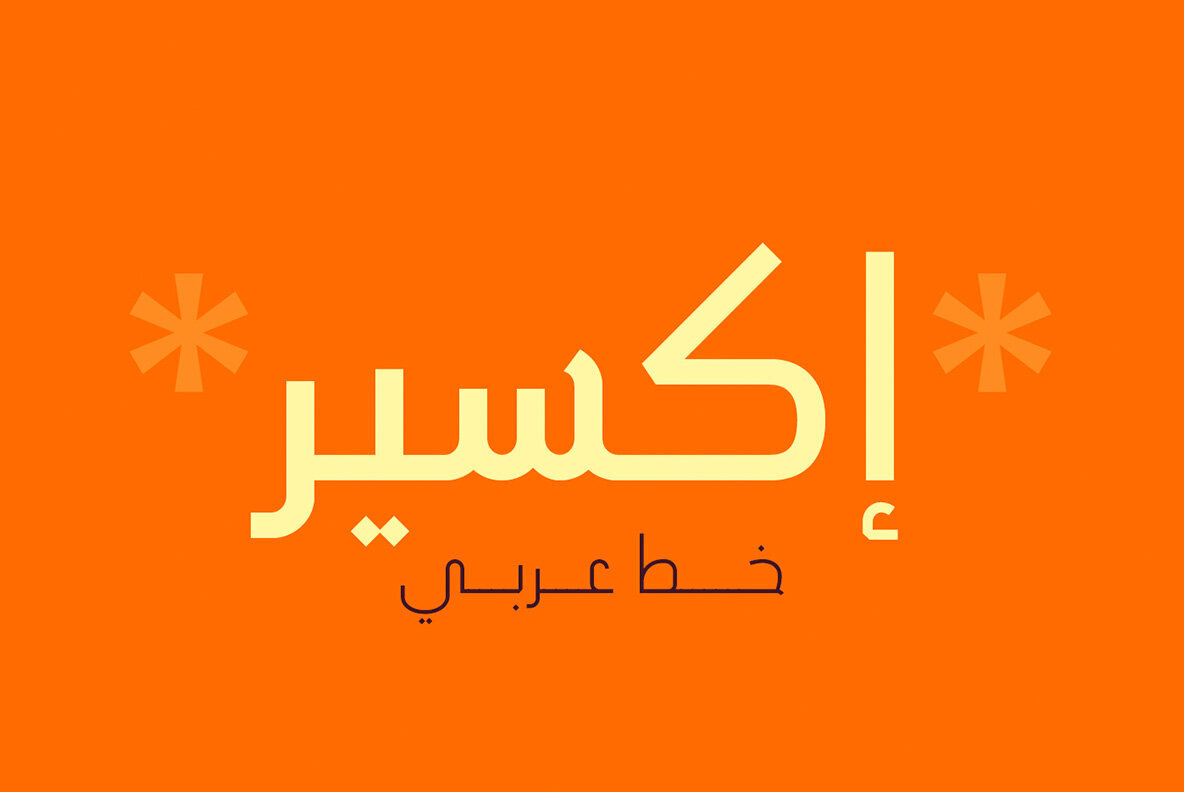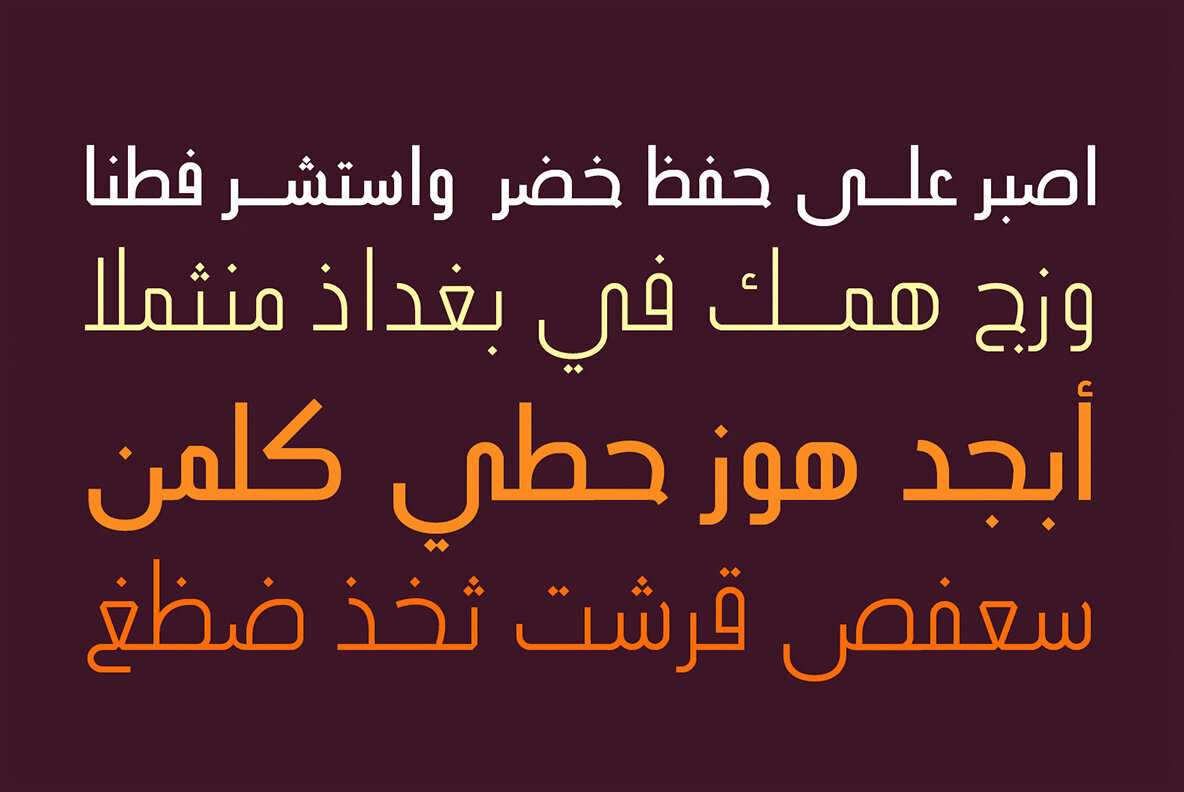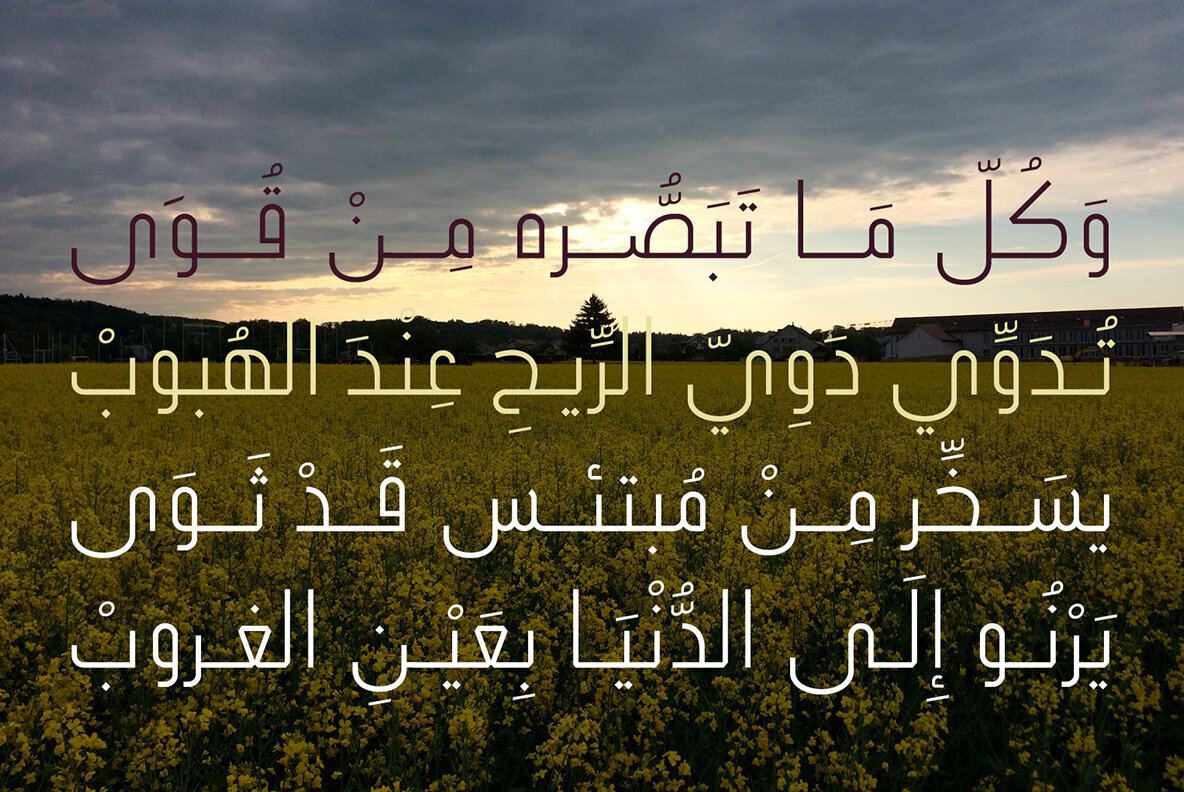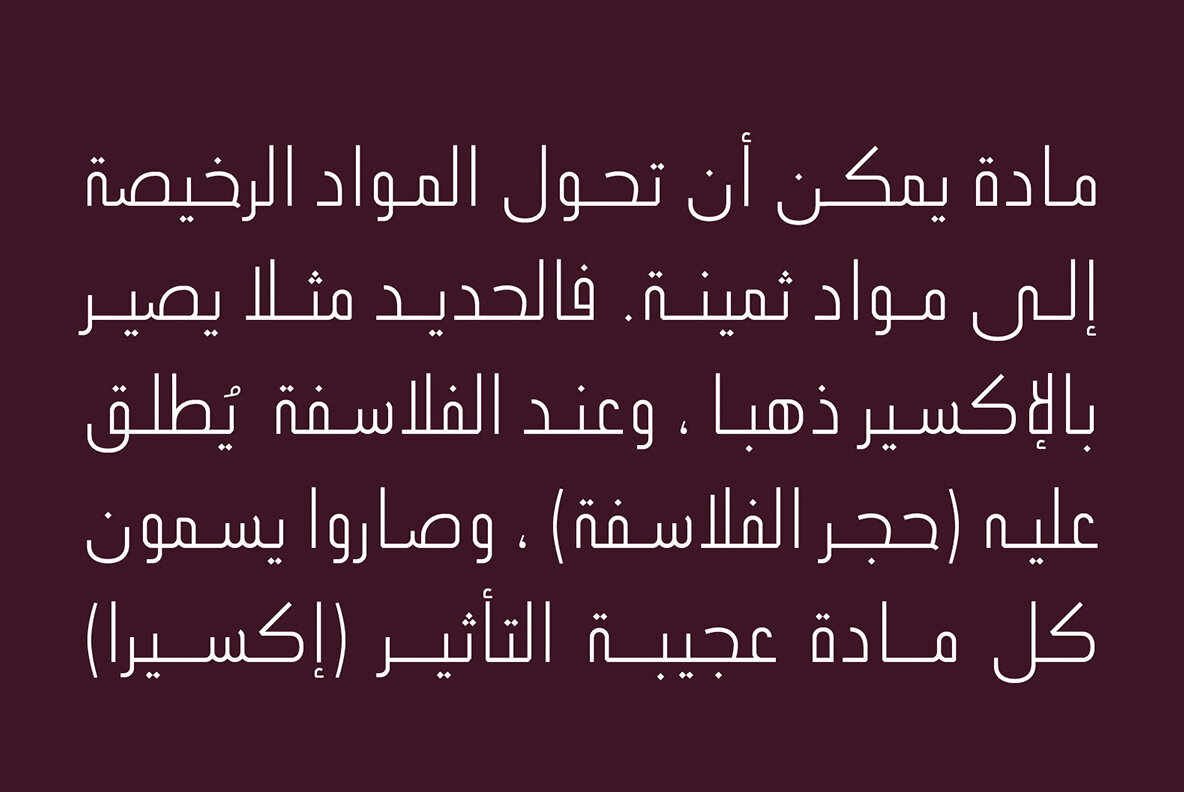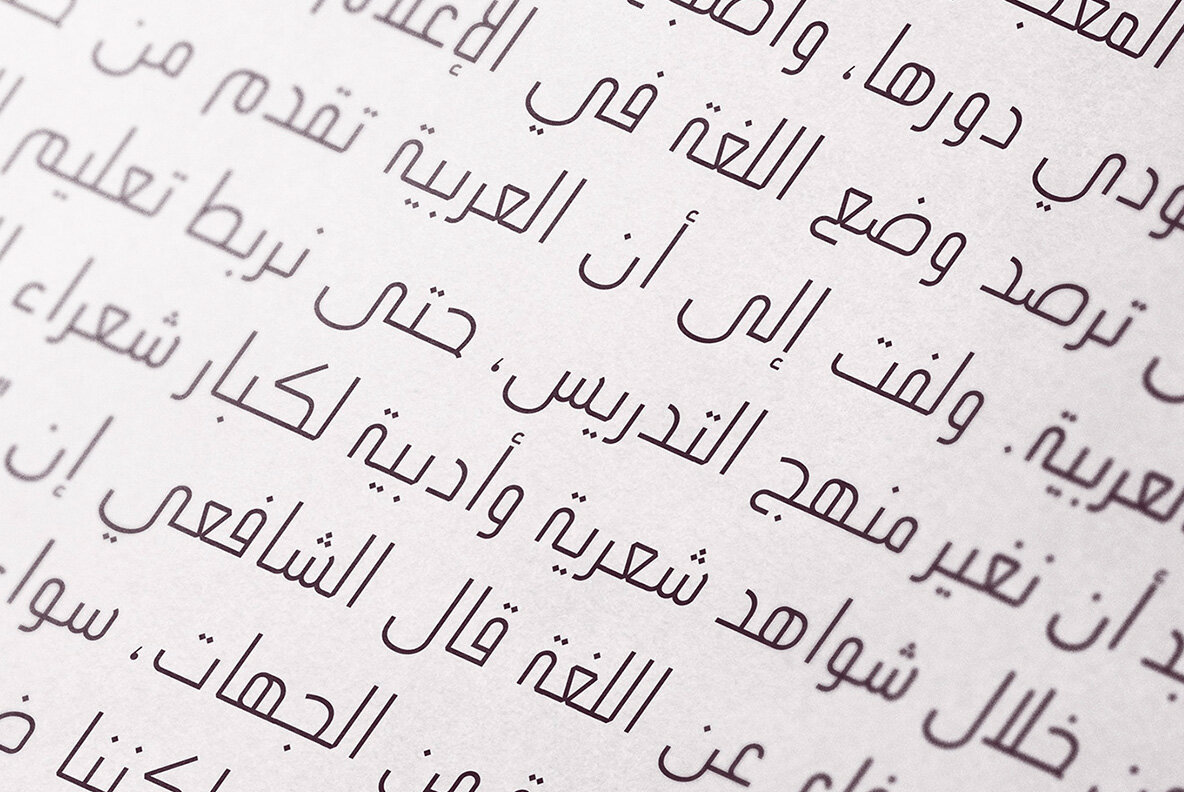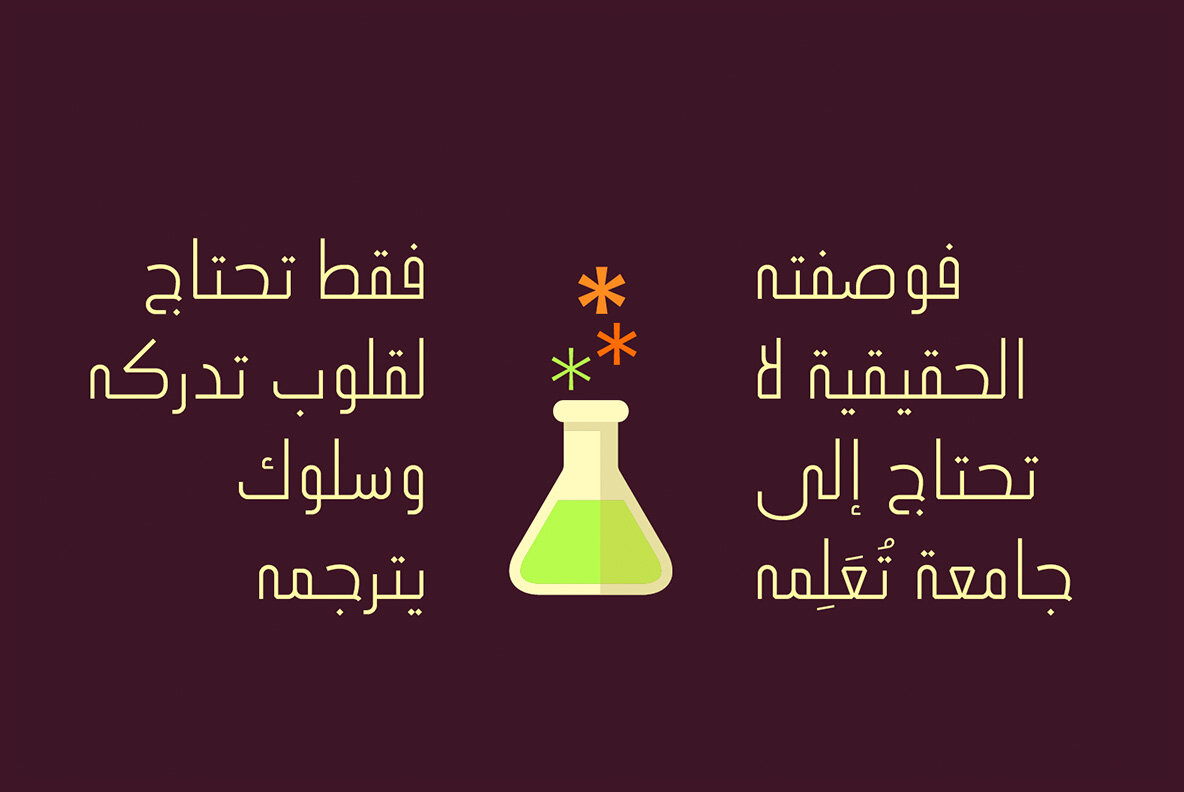
Ikseer Font
Kseer presents a harmonious fusion of contemporary design and timeless elegance. Crafted to cater to both print and digital platforms, this Arabic typeface is perfect for editorial layouts, websites, and mobile interfaces. The typeface offers a clean simplicity that enhances readability without sacrificing aesthetic appeal.Kseer: A Modern Arabic Typeface of Refined Elegance